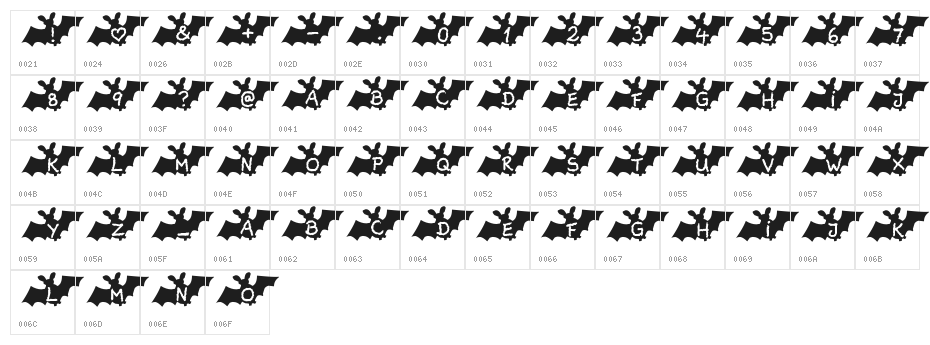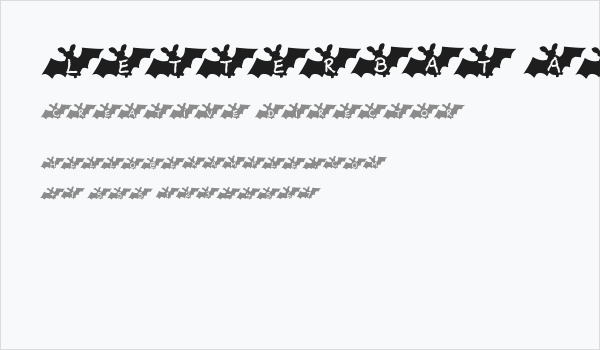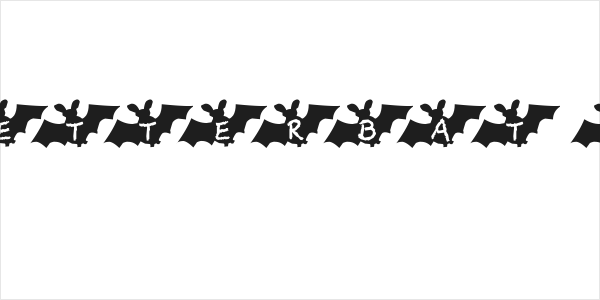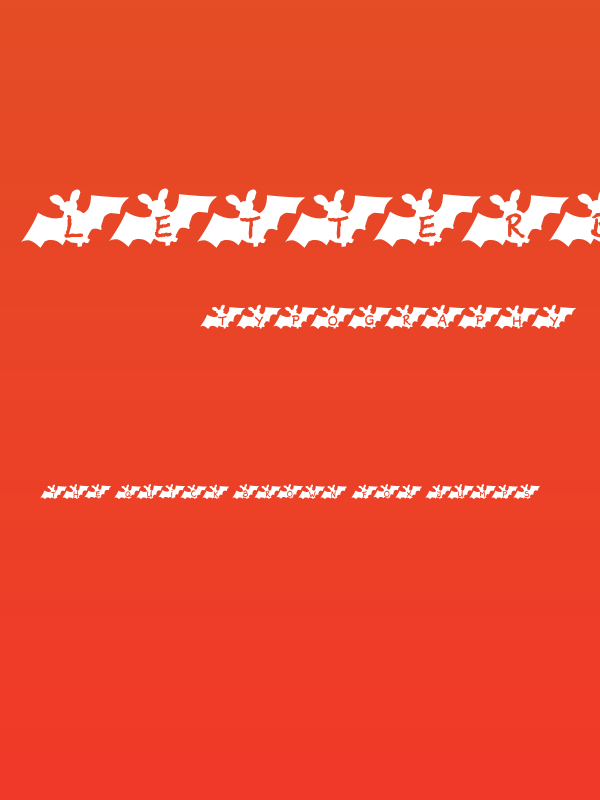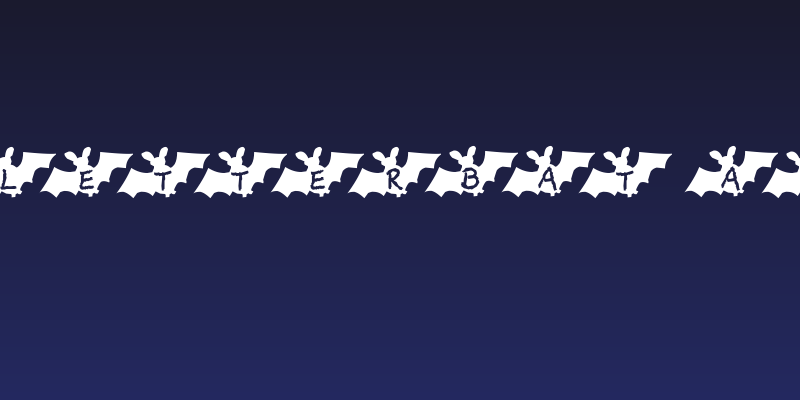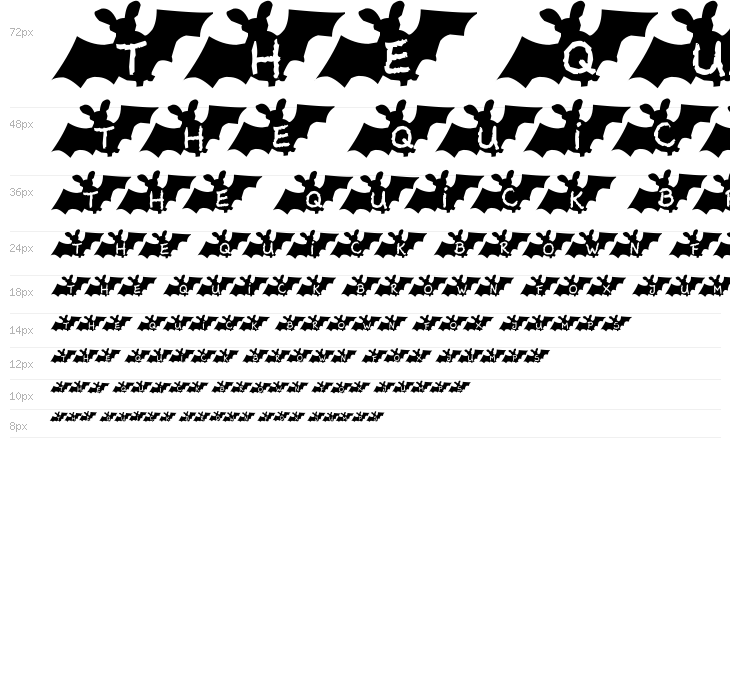
LetterBat AH Font
| Область применения | Headlines, Logos, Themed Events |
| Рекомендуемые проекты | This font is perfect for Halloween invitations, themed party decorations, children's books, or any project requiring a fun and spooky aesthetic. |